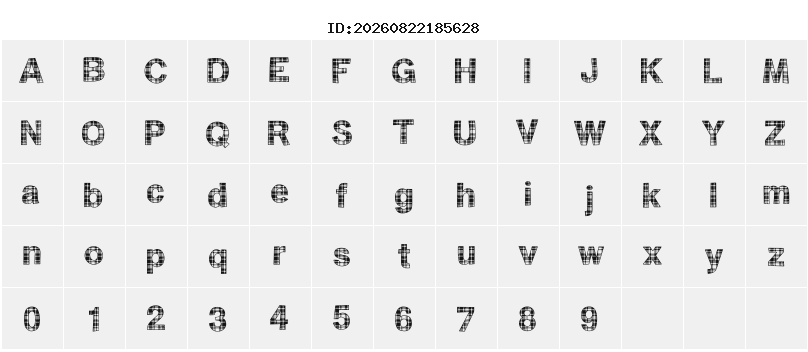
Scartan  Floaben Preview
• Font Name: Scartan Floaben
• Full Font Name: Scartan Floaben
About Scartan Floaben.ttf
Scartan Floaben.ttf is a modern, elegant sans-serif font designed for ultimate readability and visual harmony. Perfect for branding, headlines, web design, and print materials.